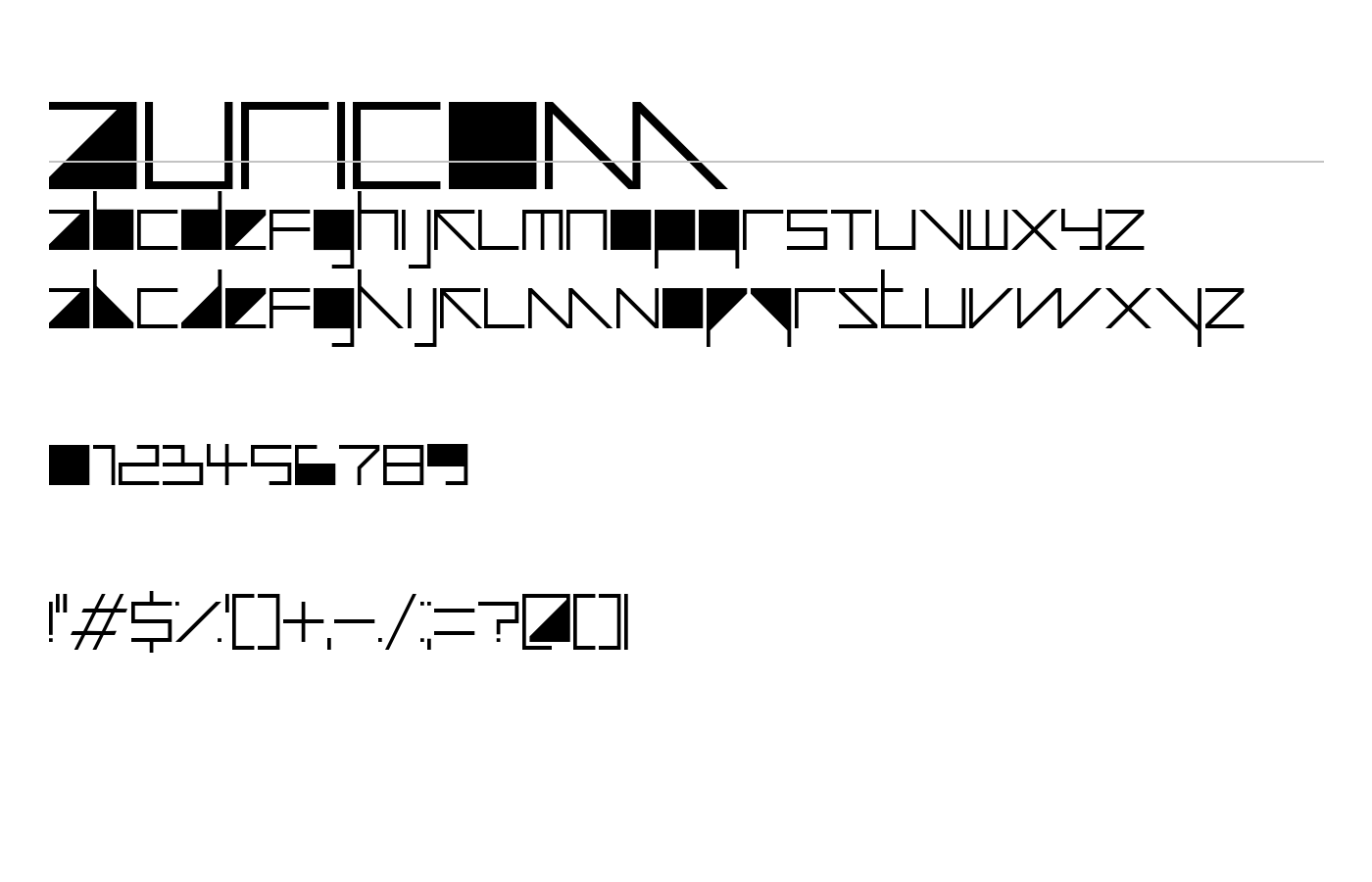
Auricom is a modern, geometric sans serif font characterized by its thin, angular lines and striking use of solid black shapes that give it a futuristic and experimental feel. Its narrow width, high contrast between thin strokes and bold blocks, and unique letterforms make it ideal for cutting-edge branding, editorial headlines, and creative projects seeking a bold, avant-garde look. This font stands out best in large sizes where its distinct shapes and sharp edges can capture attention with a contemporary, tech-inspired personality.
Auricom Font
About Auricom Font